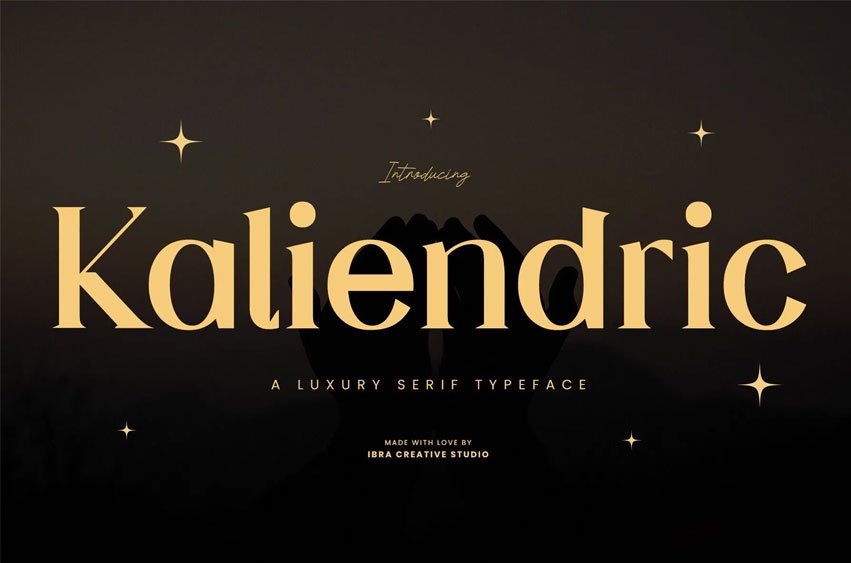
Kaliendric Font, a luxury serif font, epitomizes elegance and sophistication in the realm of typography. Its meticulously crafted serifs and refined letterforms seamlessly blend tradition with a contemporary aesthetic, creating a visual harmony that captivates the discerning eye.